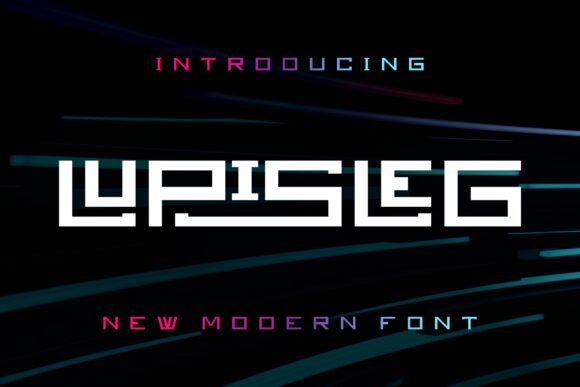
Lupisleg, crafted by designer Albert Kalingga, is a captivating display font that exudes a distinct techno-inspired aesthetic. With its expanded width and bold, angular lines, this font commands attention, evoking a sense of futuristic sophistication. The sharp, geometric letterforms are meticulously designed, creating a visually striking and impactful typographic experience.
Lupisleg's versatility shines through its ability to elevate a wide range of design projects, from bold headings and attention-grabbing logos to high-impact digital interfaces and cutting-edge branding. Its expanded width and techno-inspired style make it an ideal choice for projects that require a strong, visually striking typographic presence, such as in the realms of technology, gaming, and modern design.